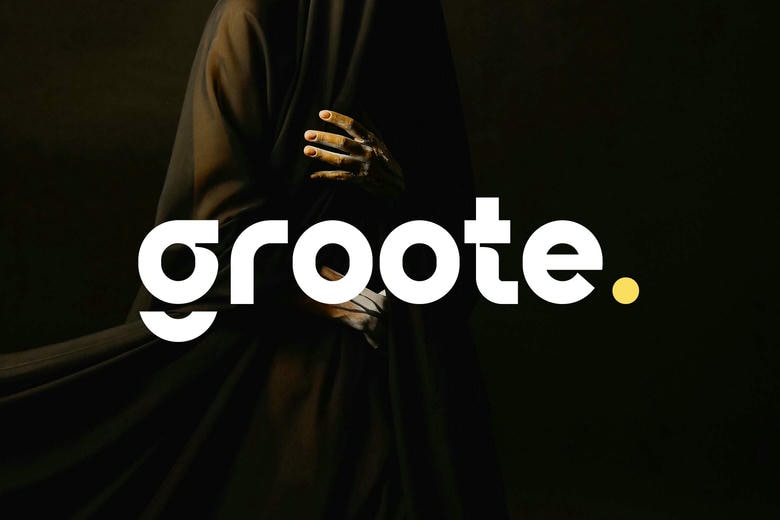
Groote Font
Groote is a contemporary and unique sans serif typeface to be utilized in complex logo designing and high-end branding. Its elegant letterforms, smooth proportions, and the overall minimalism give Groote a tasteful appeal that makes it an ideal choice to use in fashion brands, luxury products, editorial design, and all digital design projects.
Groote Sans Serif Font